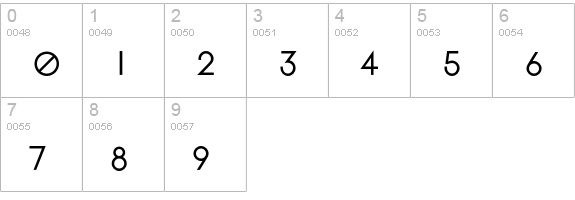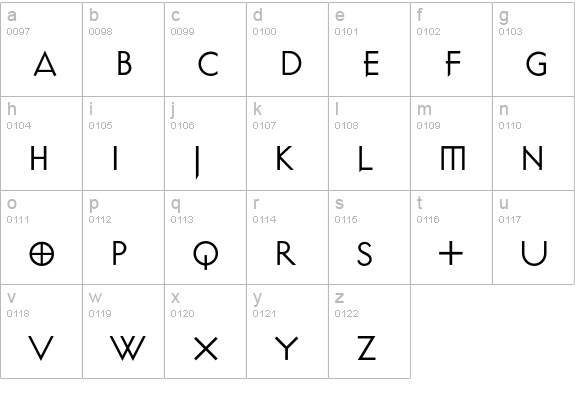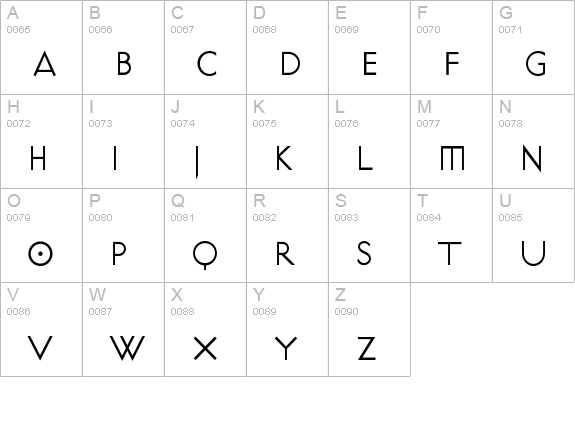
Patriot-Light Font Details
Patriot-Light is a refined, elegant variant in the Patriot typeface family \xE2\x80\x94 well suited to elegant body text, refined sub-headings, and luxury branding.
Patriot-Light is a visually stunning font that effortlessly blends elegance with a touch of modernity. Designed with utmost precision, this typeface exudes a sense of sophistication that is perfect for any project that requires a refined and timeless aesthetic. With its clean lines and well-balanced proportions, Patriot-Light has been meticulously crafted to ensure legibility and readability across various platforms and devices. Its slender strokes and delicate curves create a harmonious flow that is both pleasing to the eye and easy to read, making it an ideal choice for both digital and print designs. But what truly sets Patriot-Light apart is the fact that it is freely available to download at FontsMarket.com. Yes, you read that right! This exceptional font can be yours at no cost, allowing you to elevate your creative projects without breaking the bank. Whether you're a professional designer or a passionate hobbyist, Patriot-Light offers an opportunity to enhance your work with a premium-quality font, without the hefty price tag. So why wait? Take advantage of this incredible opportunity and download Patriot-Light today. With its timeless elegance and unbeatable price, this font will undoubtedly become an invaluable asset in your design arsenal. Don't miss out on the chance to elevate your creations and make a lasting impression with Patriot-Light.